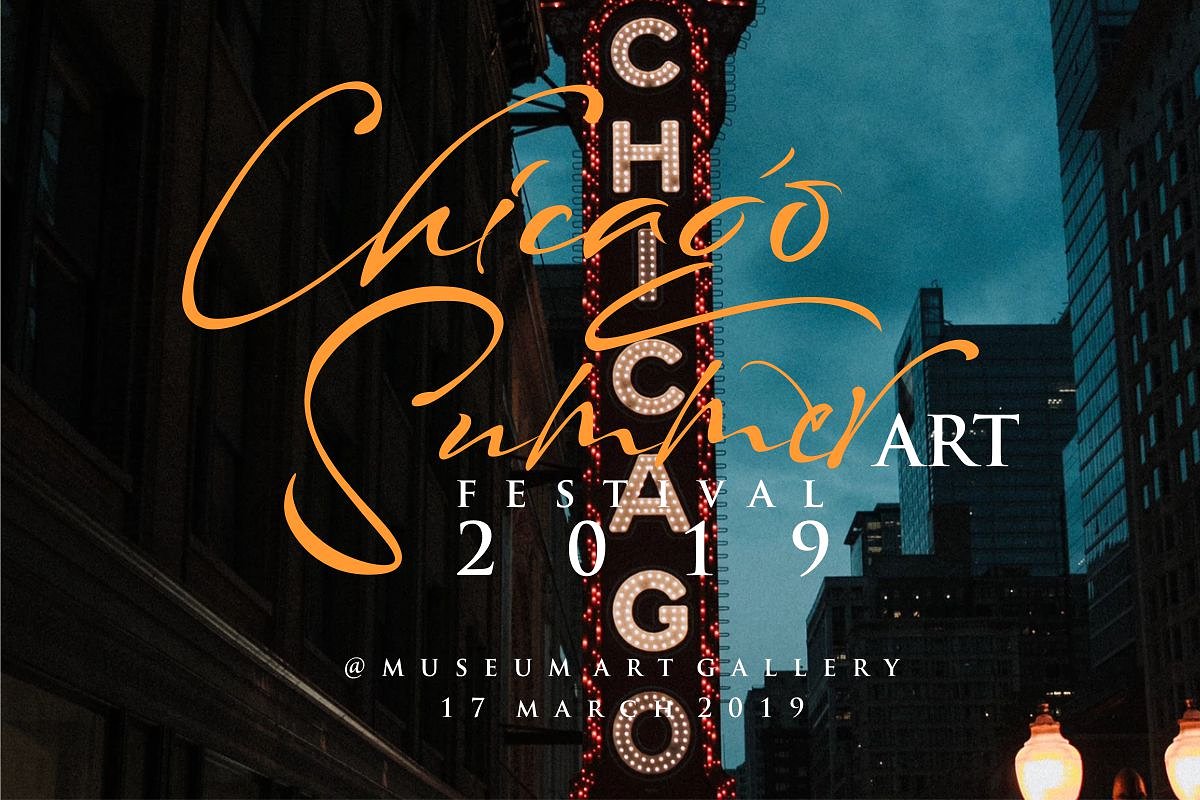
Maestro Signature Font
Maestro Signature Demo Font
Hello dears! This font is a new calligraphic script font. This font was designed by handwriting, and it has a modern and unique forms of calligraphy, the writing style is very natural. Introducing Maestro Font! Messy Nessy designed and shared by typeline studio. Maestro Signature Font is a expressive calligraphy script signature that are very beautiful,luxurious and high class and very very classy and uniqly font. This font is perfect for making quote,signature watermark,signature logo, logo branding,book title,logo photography,watermark pgotography, social media, wedding invitations, taglines, headlines, and anything do you want.